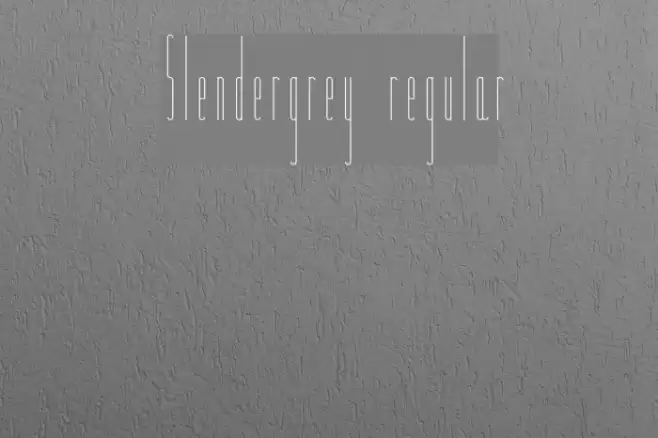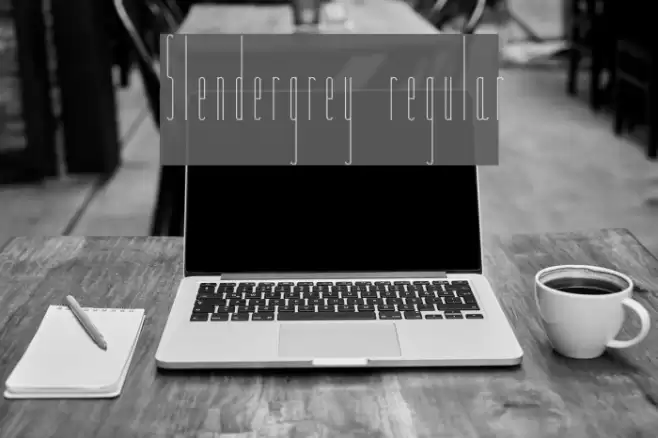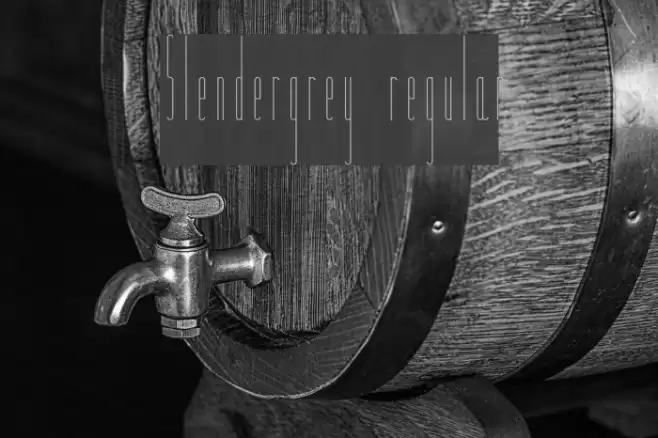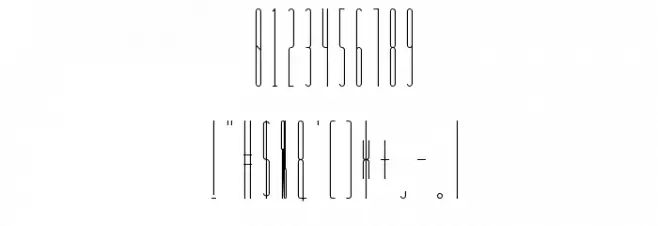
Slendergrey regular Font
Slendergrey regular Description
This font features an ultra-thin and elongated design, characterized by its tall, narrow letters and minimal stroke width. The vertical emphasis and clean lines give it a sleek and modern appearance. The uppercase and lowercase letters maintain a consistent height, contributing to a uniform and elegant look. The numerals and special characters are designed to match the overall slender aesthetic, making it suitable for projects that require a sophisticated and contemporary touch.
A slender, ultra-thin font with a modern and elegant style from Uncategorized fonts.
- Proposed Projects: Ideal for fashion magazines, luxury branding, minimalist posters, and modern web design.